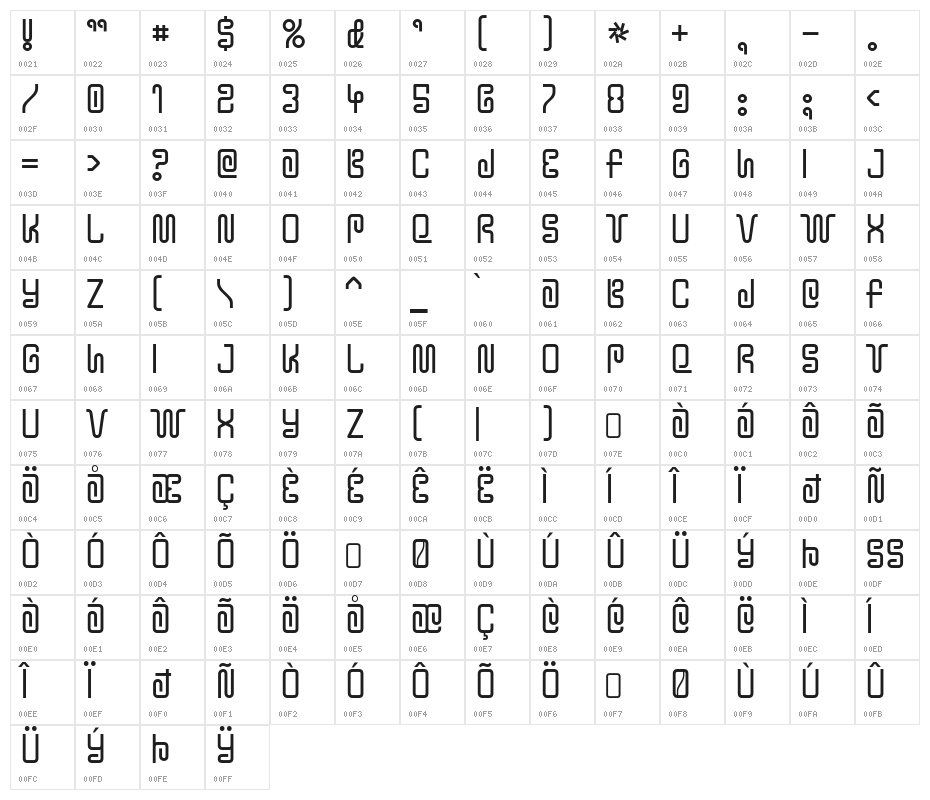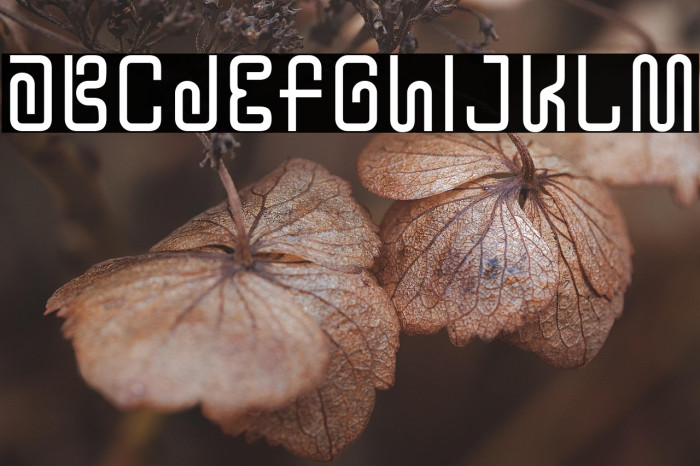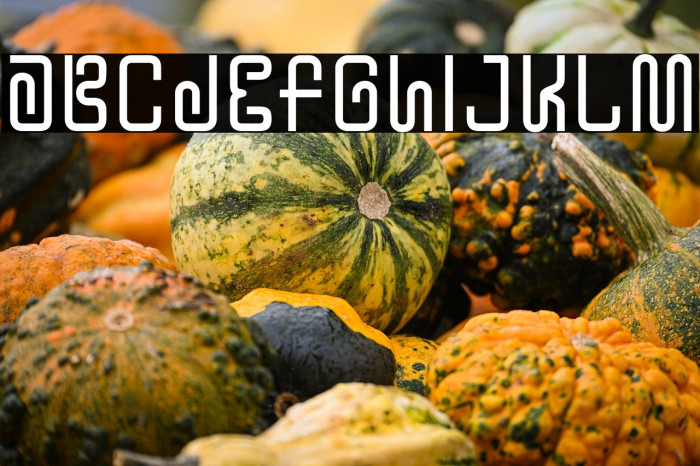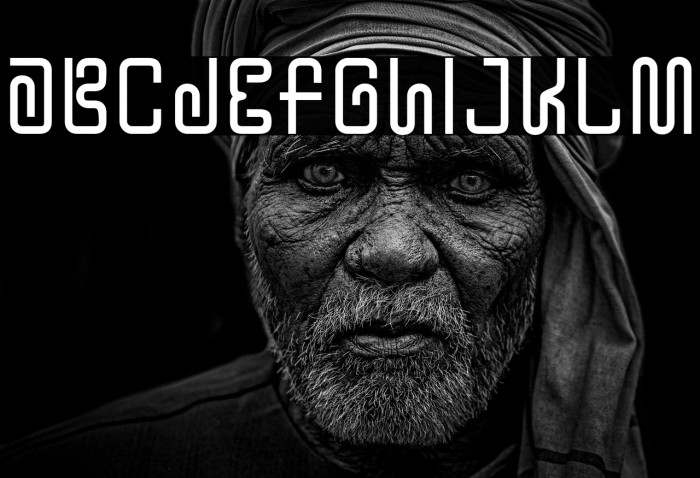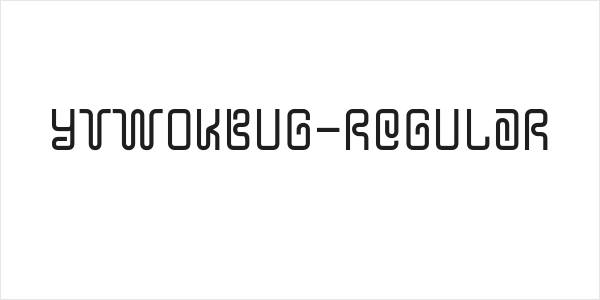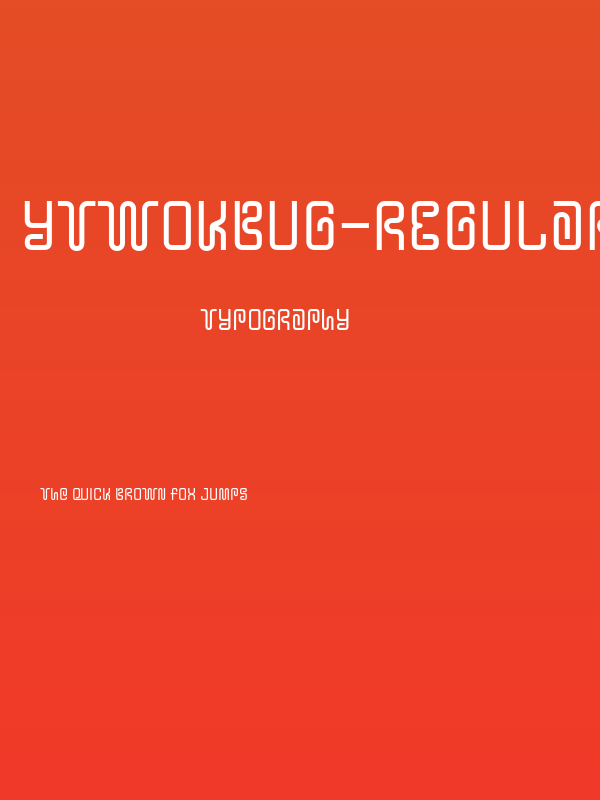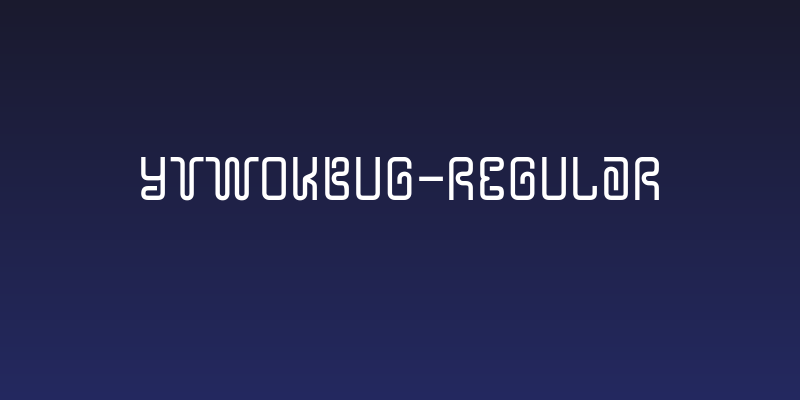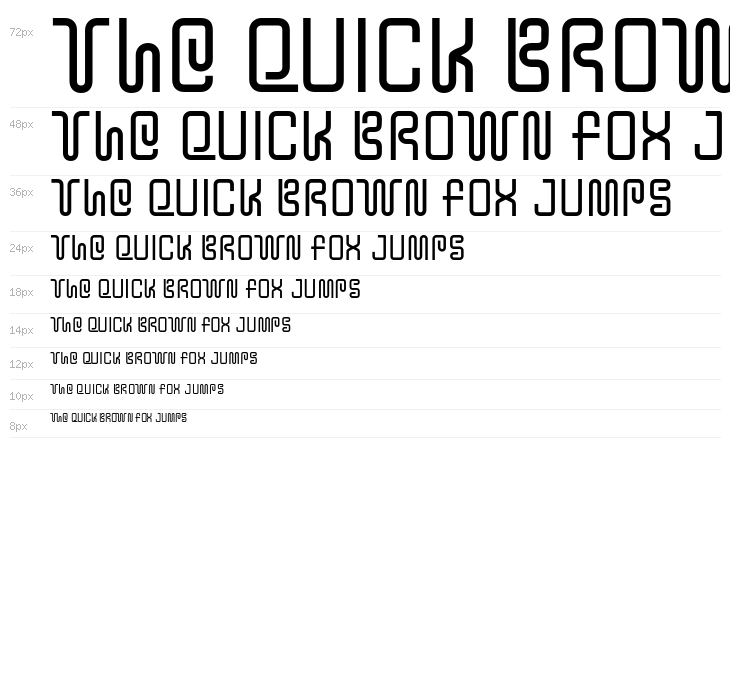
YTwoKBug-Regular Font
YTwoKBug-Regular Description
This font features a unique, futuristic design with rounded edges and a geometric structure. The characters are bold and have a consistent stroke width, giving them a modern and digital appearance. The uppercase and lowercase letters maintain a uniform height, contributing to a cohesive look. The numerals and special characters are designed to match the overall style, with a focus on readability and aesthetic appeal. The font's distinct style makes it suitable for projects that require a contemporary and tech-inspired look.